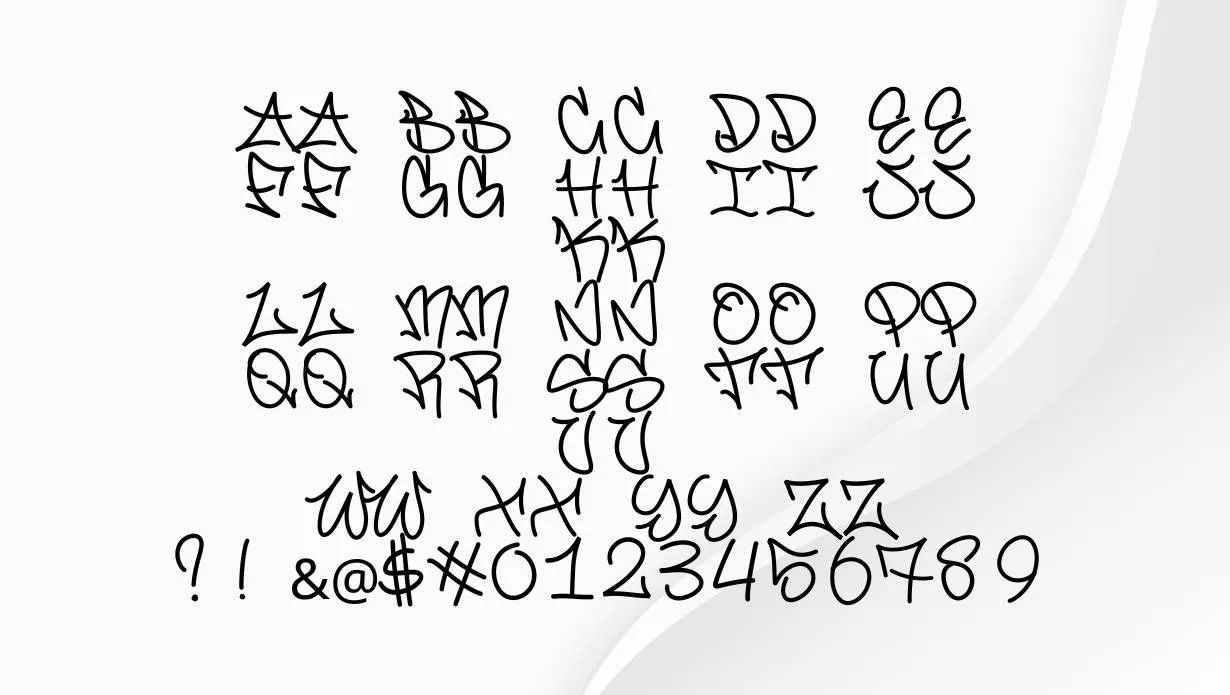
Graffiti font emulates the style of street art. It’s characterized by bold, expressive lines and often vibrant colors. This font is commonly seen in urban art and can add an edgy and rebellious vibe to designs. Technical details may include irregular shapes and stylized letterforms, resembling the spontaneity and artistic flair of graffiti spray-painted on walls.
| Name | Graffiti Font |
| Designer | Alexander Tarbeev |
The letters are often drawn with thick lines and filled in with vibrant shades, creating an urban and expressive style. This font brings an energetic and rebellious vibe to different kinds of designs, giving them a unique and artistic feel.